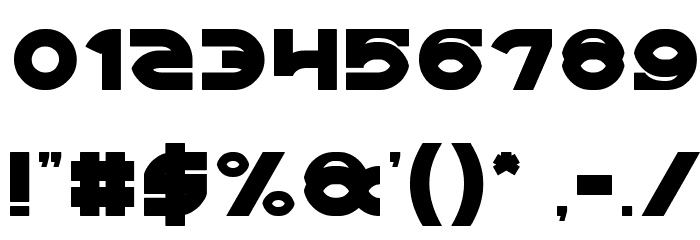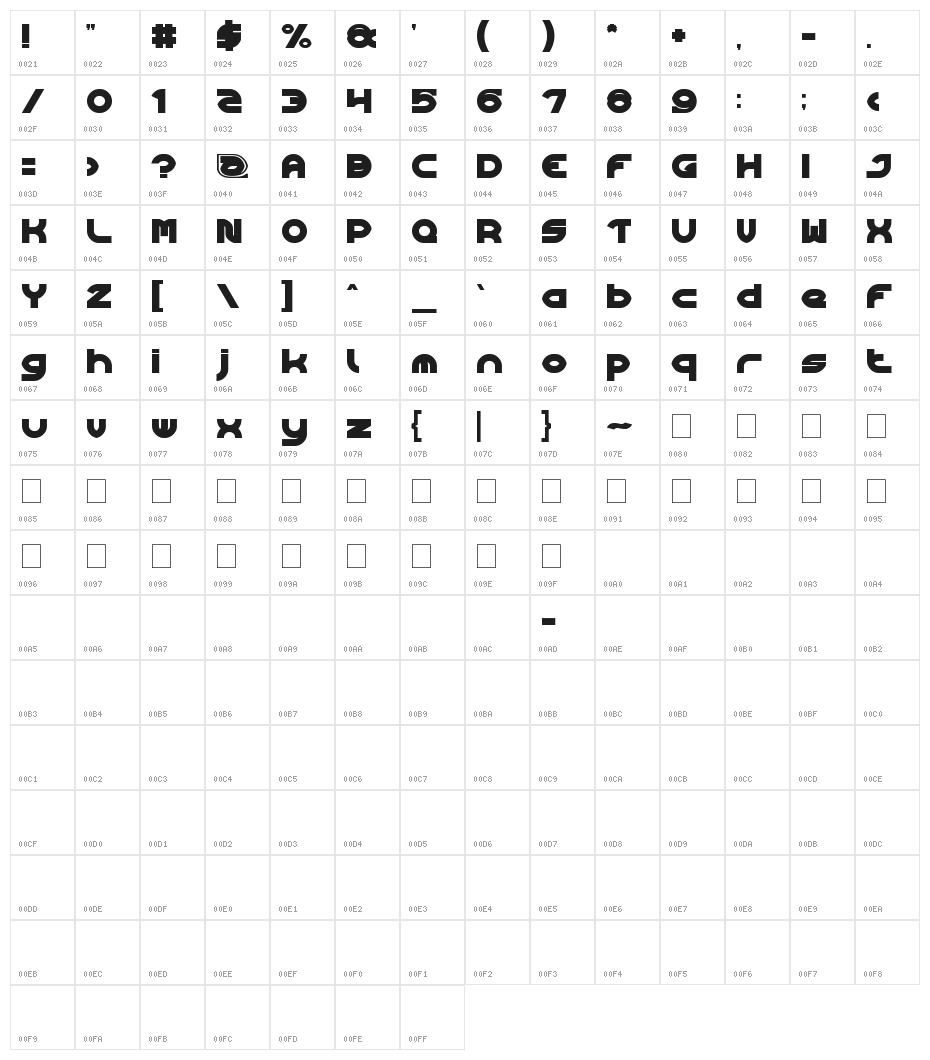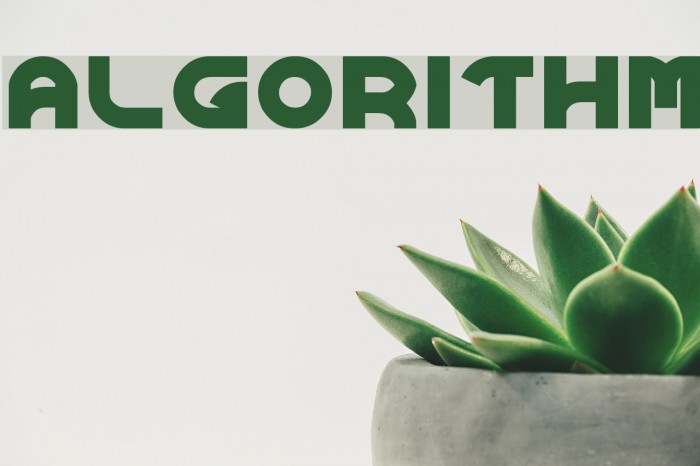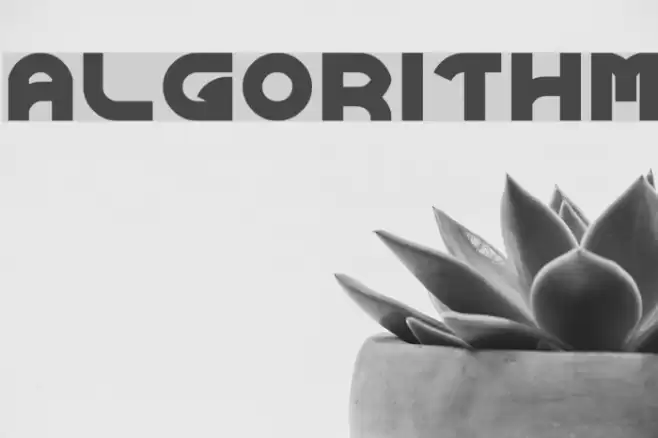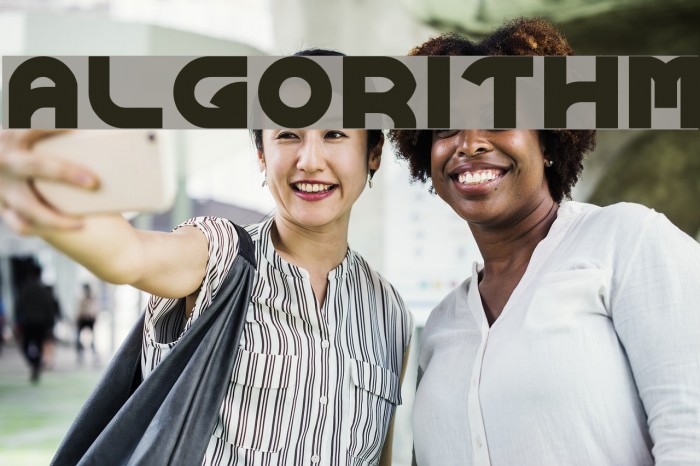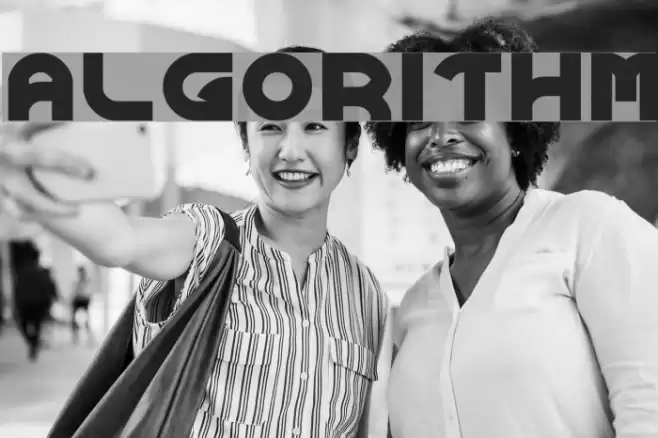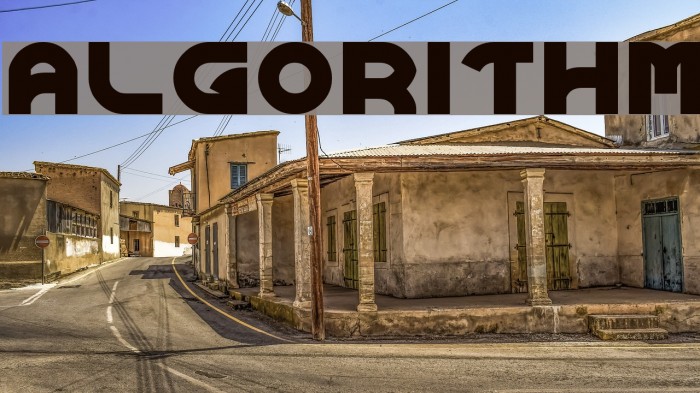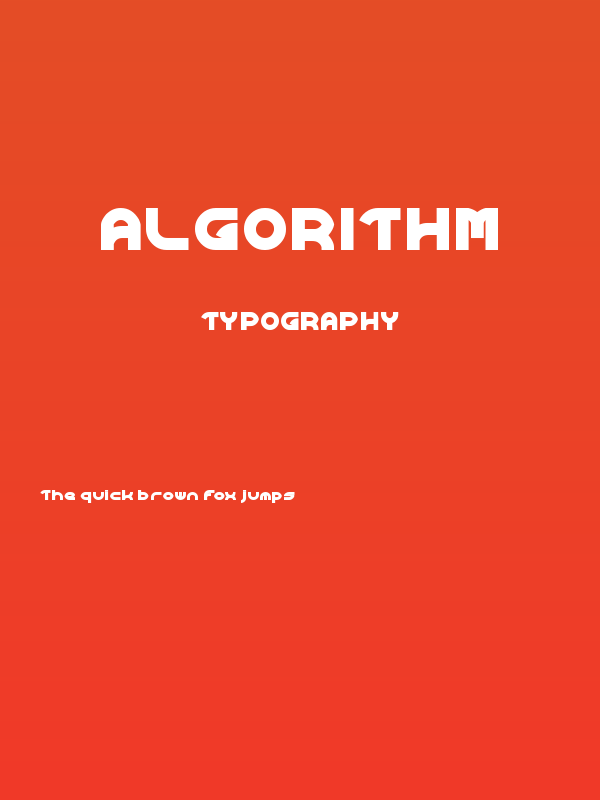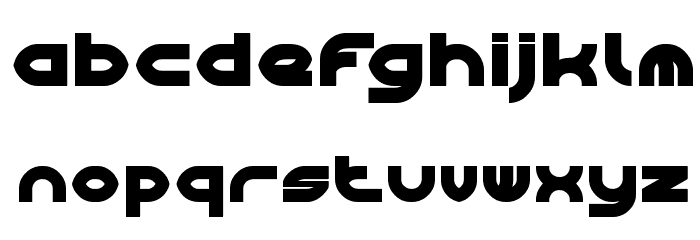
ALGORITHM Font
ALGORITHM Description
This font features a bold and geometric design, characterized by its strong, block-like structure and rounded edges. The uppercase and lowercase letters maintain a consistent width, creating a uniform appearance. The numerals and special characters follow the same geometric style, ensuring cohesion across all elements. The font's design is modern and futuristic, with a distinct emphasis on symmetry and balance. Its boldness makes it highly legible and impactful, suitable for attention-grabbing headlines or branding materials. The unique cutouts and angles add a touch of creativity, making it stand out in various design contexts.
| Proposed Projects | Ideal for branding, headlines, posters, and digital media that require a modern and bold aesthetic. |